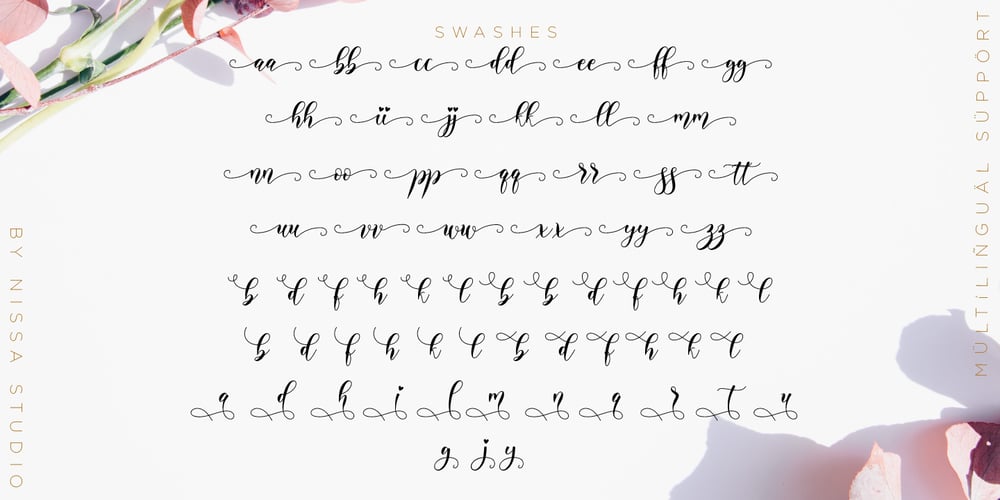
Alyanda
Alyanda font
Alyanda Font Family was designed by Novia Himatunnisa and published by Nissa Nana. Alyanda contains 1 styles and family package options. Alyanda is a beautiful script with a classy, elegant, and modern look. Fall in love with its authentic vibe, and turn any design project into a standout!